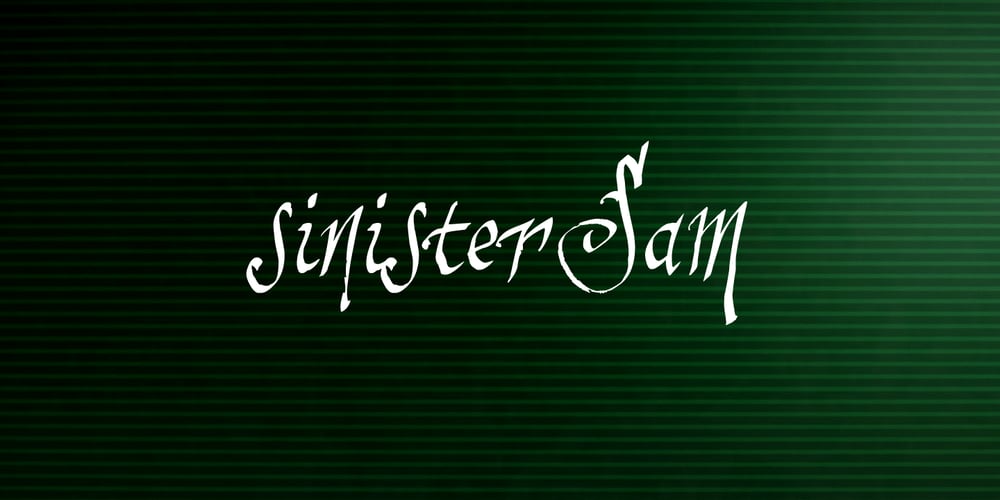
SinisterSam Font Family was designed by Jeroen “Joebob” van der Ham and published by JOEBOB graphics. SinisterSam contains 1 styles and family package options. For all your sinister documents, magic spells and medieval poetry: here’s sinisterSam.